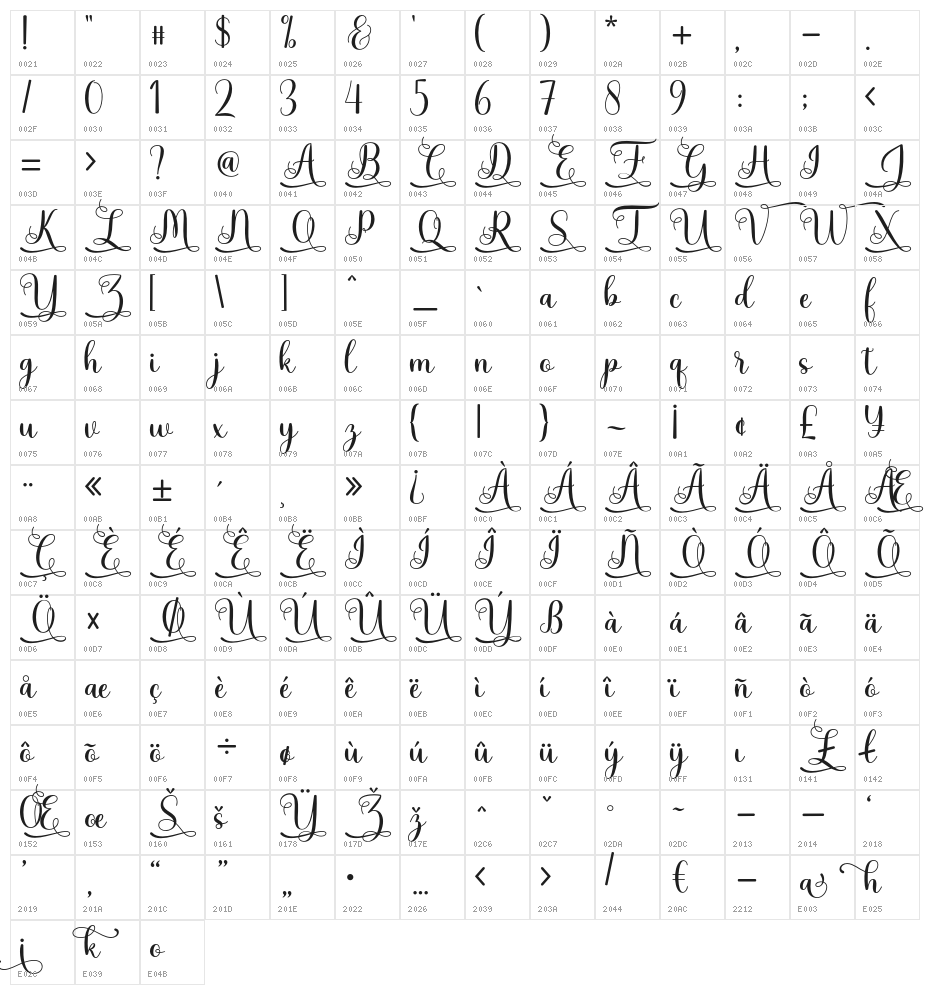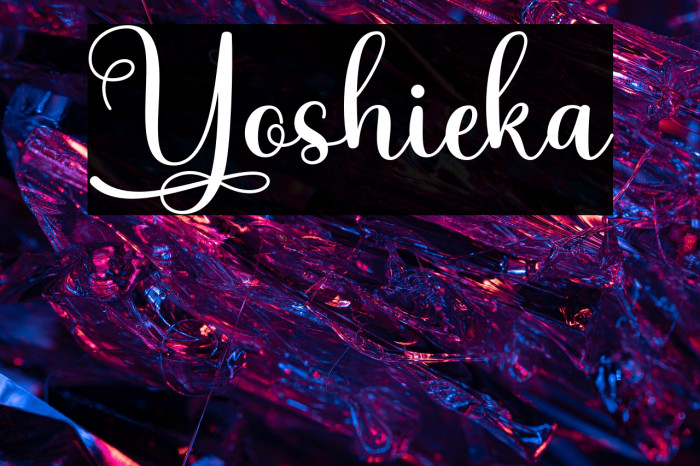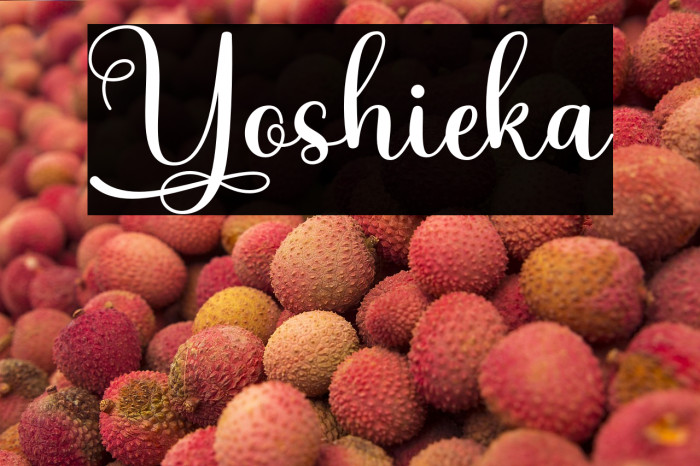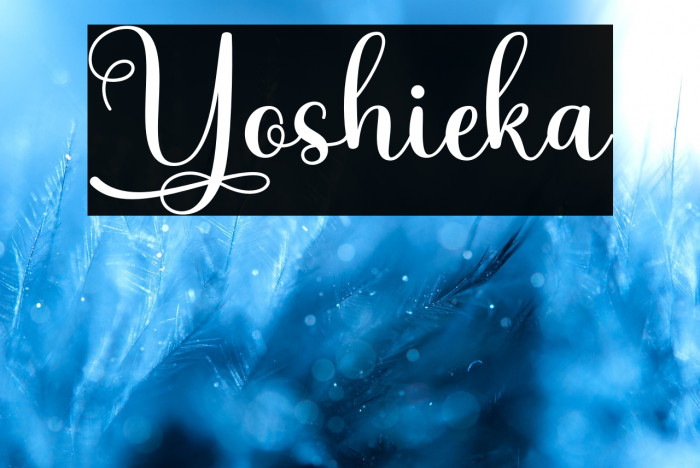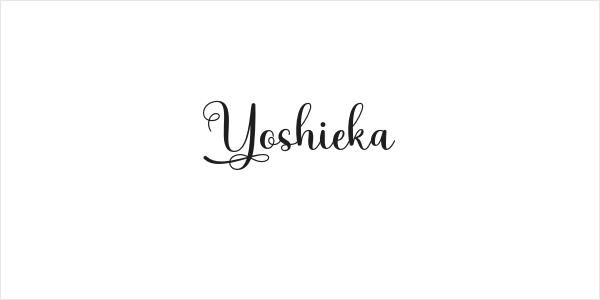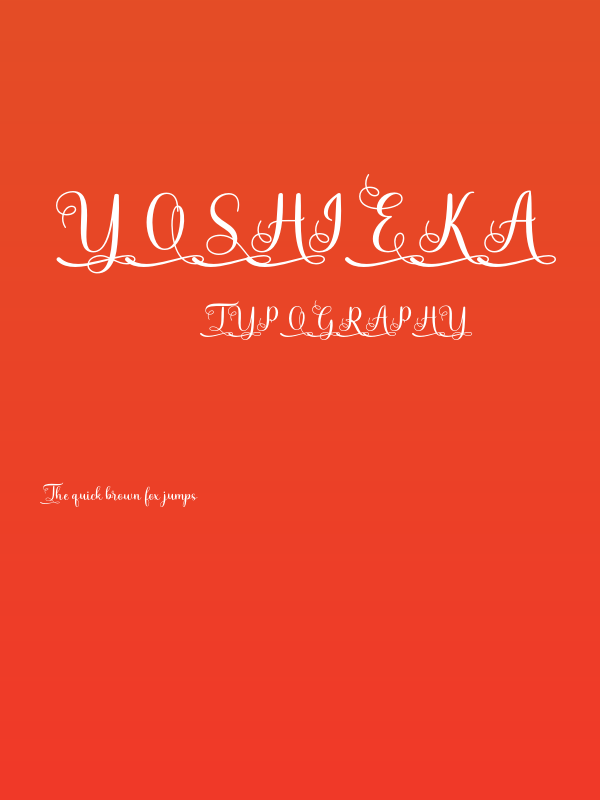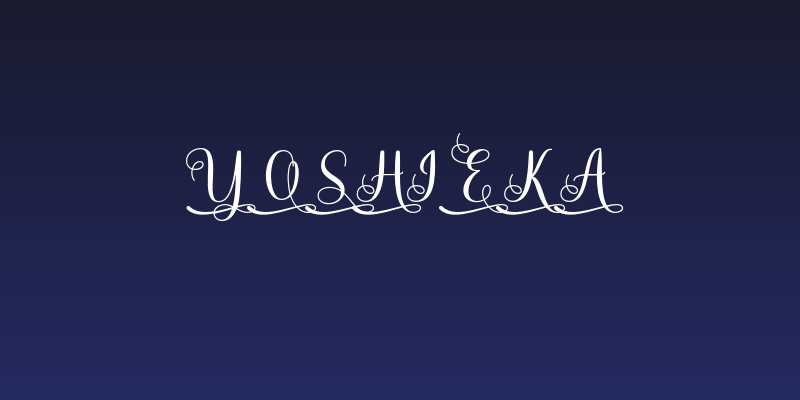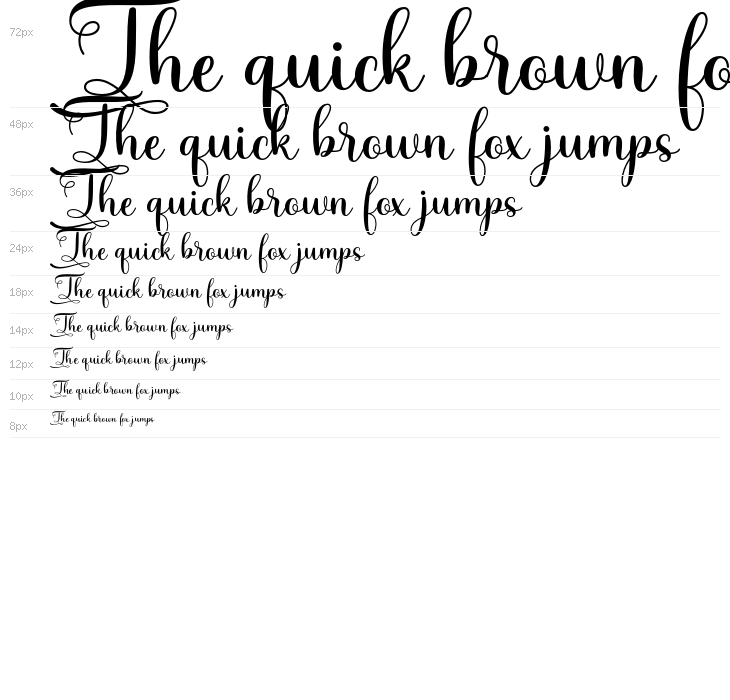
Yoshieka Font
Yoshieka Description
This font features an elegant and decorative style with intricate swirls and flourishes that embellish each character, giving it a sophisticated and artistic appearance. The uppercase letters are adorned with elaborate loops and curves, creating a sense of movement and grace. The lowercase letters maintain a smooth and flowing script style, adding to the overall elegance. The numerals and special characters are designed with a similar flair, ensuring consistency throughout the font. This font is ideal for projects that require a touch of elegance and creativity, such as wedding invitations, branding, and decorative headings.